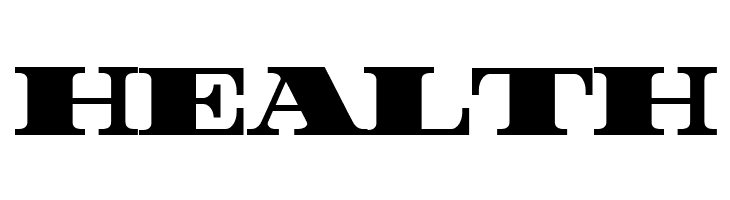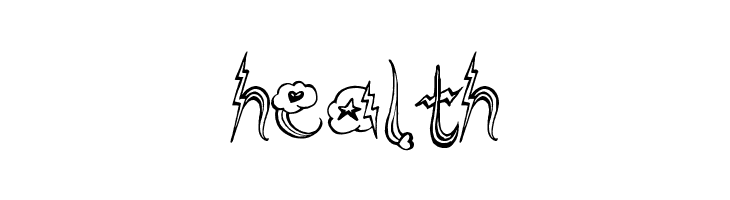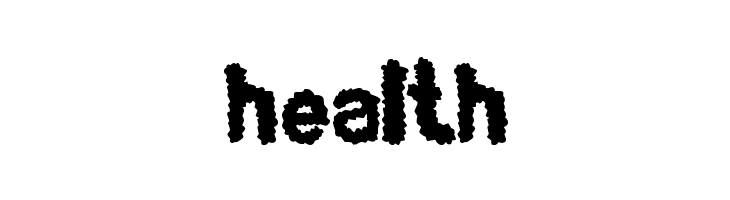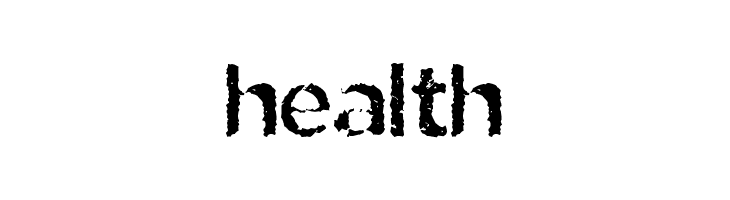
A bold, high-contrast serif font with sharp serifs and dramatic style.
A cursive, handwritten font with elegant, flowing characters.
A bold, expressive handwritten font with fluid and dynamic strokes.
A tall, narrow font with a striking, elegant design and consistent stroke width.
A tall, narrow font with minimal serifs and a vintage western style.
A bold, dynamic script font with high contrast and a sense of motion.
An elegant script font with decorative swirls and flourishes.
A playful, rounded font with smooth lines and uniform stroke width.
A bold, italicized font with sharp, lightning-inspired edges for a dynamic look.
A bold, electrifying font with sharp, angular edges and dynamic style.
A bold, italicized font with a dynamic, lightning-inspired design.
A bold, electrifying font with sharp, angular edges and a hollow design.
A bold, angular font with sharp, lightning-inspired serifs, perfect for dynamic and energetic designs.
A bold, hollow font with sharp, lightning-inspired edges.
A bold, lightning-inspired font with sharp, angular edges for a dynamic look.
A decorative, geometric font with bold lines and unique shapes.
A fluid and elegant script font with a natural handwriting style.
An elegant and flowing script font with ornate uppercase and smooth lowercase letters.
A dynamic, brush-style font with expressive, fluid strokes.
A tall, narrow font with consistent stroke width and a modern, vintage appeal.
A tall, narrow font with elongated vertical lines and minimal spacing.
A bold, playful handwritten font with rounded, smooth letterforms.
A bold, distressed font with a vintage, rugged appearance.
A playful, bold font with bubbly, rounded characters and a whimsical style.
A bold, dynamic script font with a handwritten, energetic style.
A dynamic cursive script font with fluid, interconnected letters.
A casual, connected script font with rounded, playful forms.
Bold, hand-drawn display font with jagged, energetic strokes.
Bold, condensed Western-style display font with ornamental serifs.